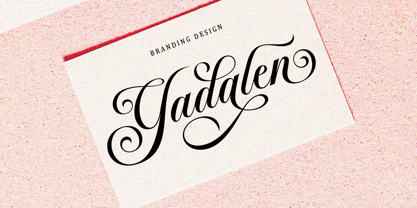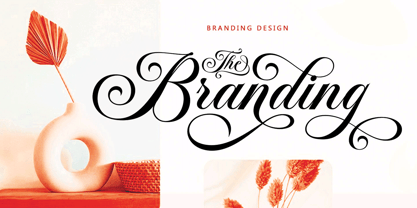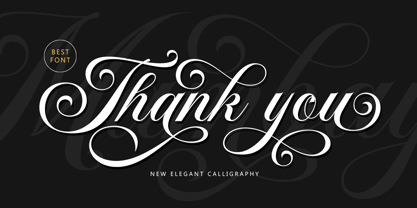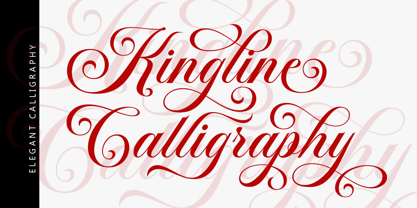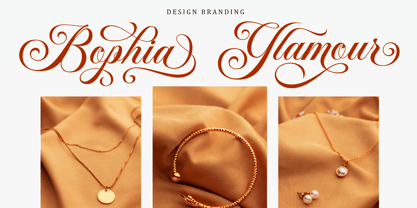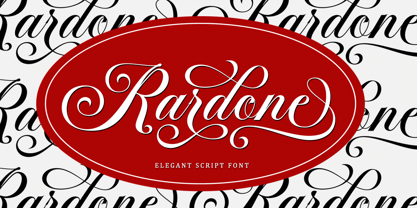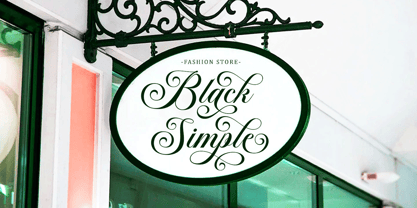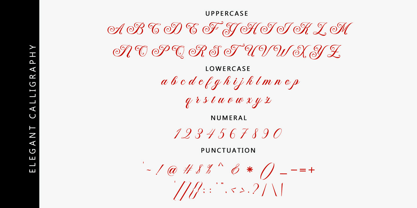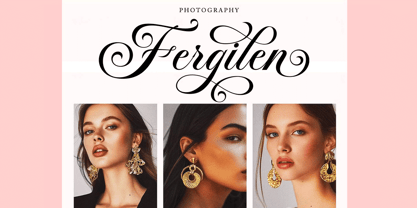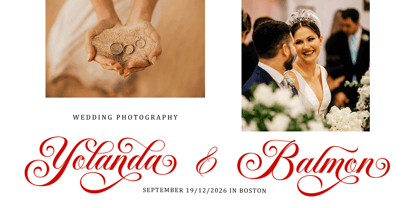
Mambay
by Gold Type
The Mambay Font Family was designed by Wahi Din and published by Gold Type. Mambay contains 4 styles and family package options.
Mambay Script font is an elegant script font featuring beautiful character variations. This font combines an elegant copper style with a modern touch, meticulously designed for an elegant look. This font is visually appealing, clean, feminine, and easy to read thanks to its luxurious letter connections. Its classic style is perfect for a variety of formal uses, including invitations, labels, restaurant menus, logos, fashion, makeup, stationery, novels, magazines, books, greeting and wedding cards, packaging, and all types of advertising. Contains a complete set: 4 font types Regular, Italic, Bold, Bold Italic - Uppercase - Lowercase - Alternate - Numbers & Punctuation - Font style - Multilingual support. If you need help or have any questions, let me know. I'm happy to help. Thank you & Happy Designing.